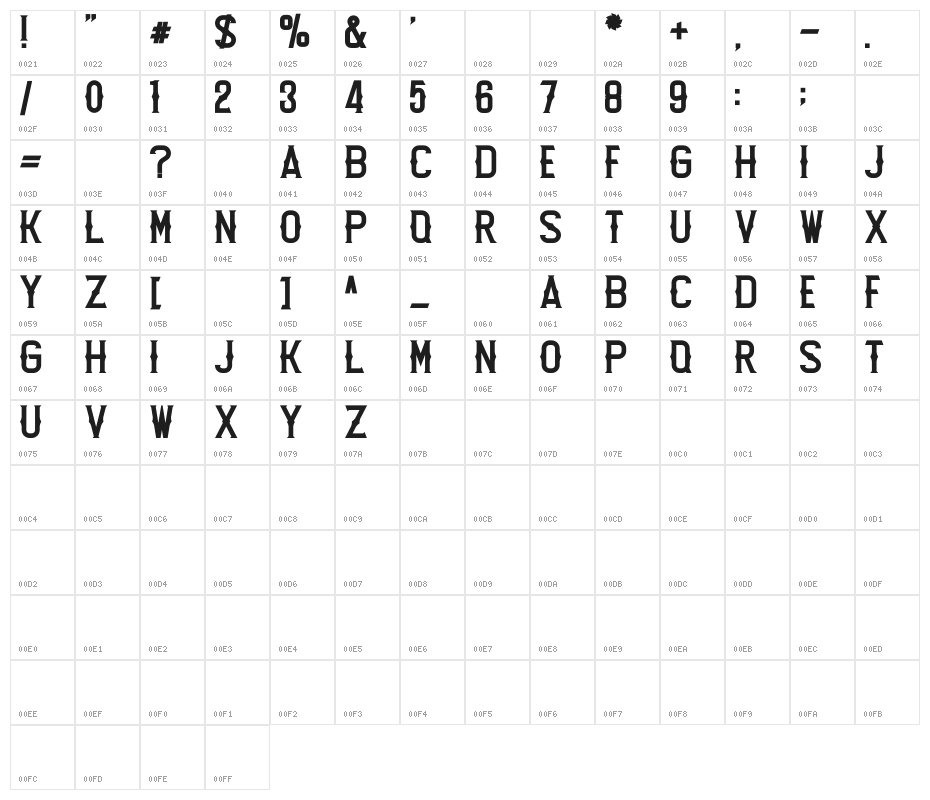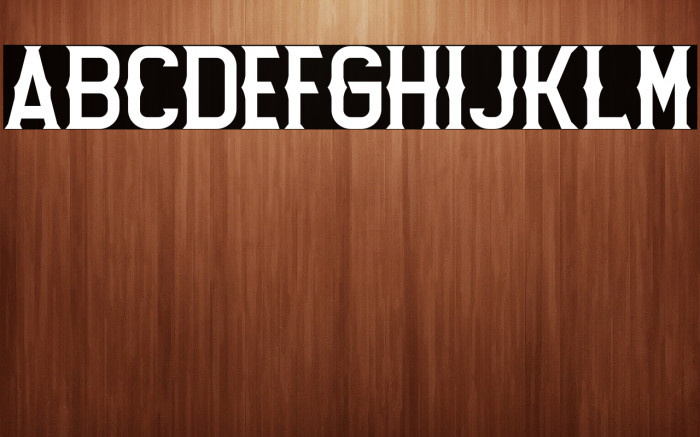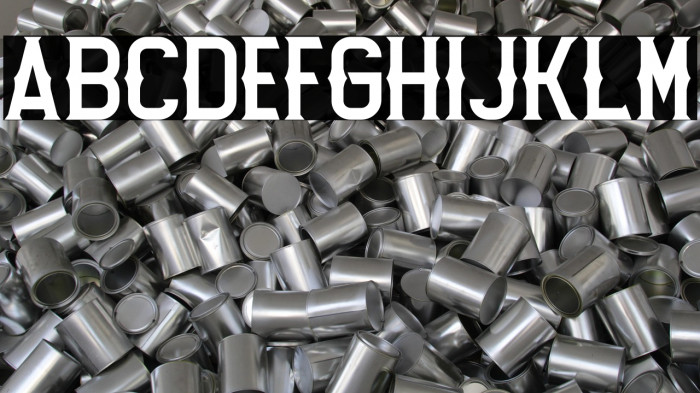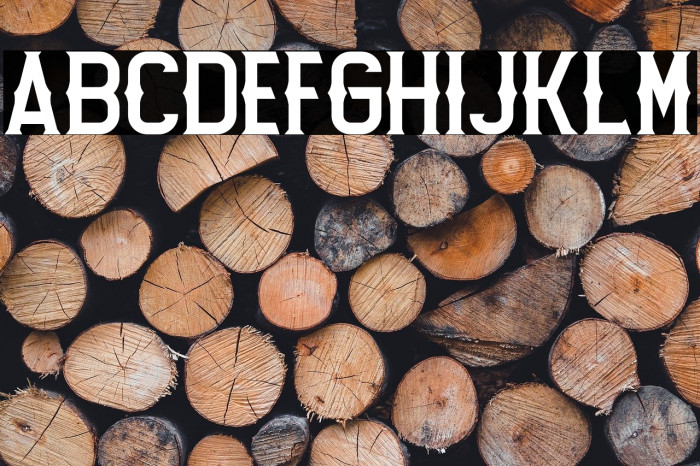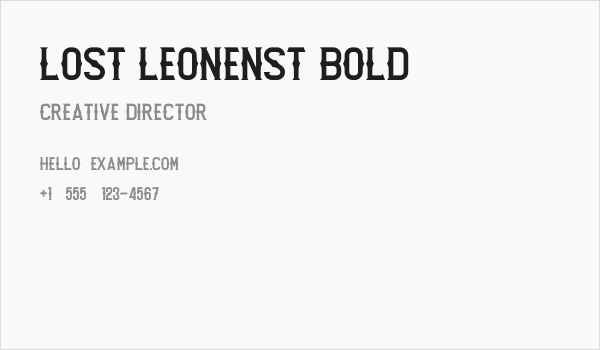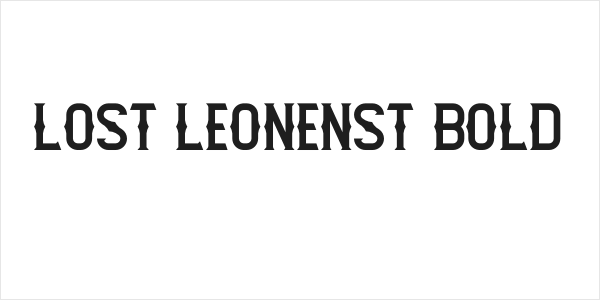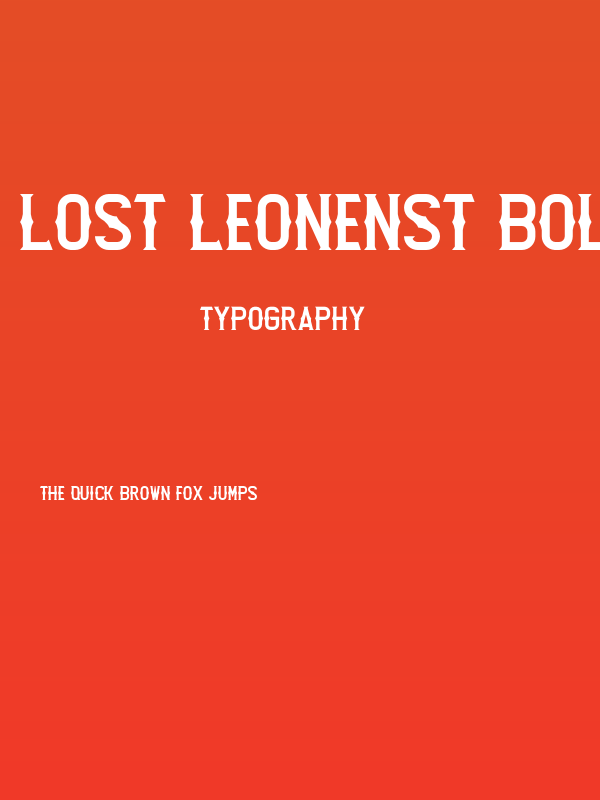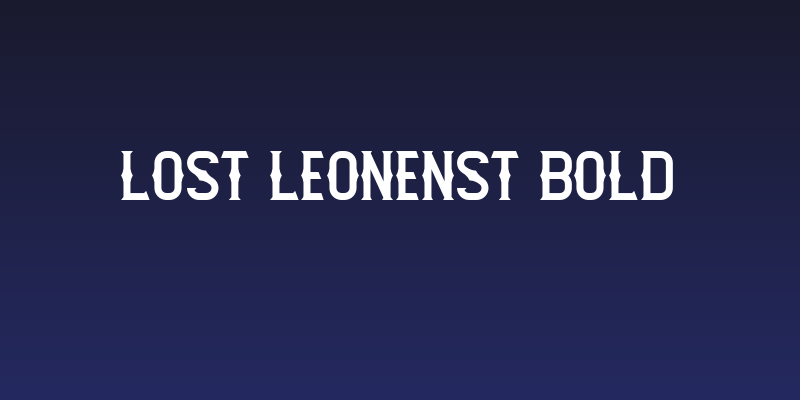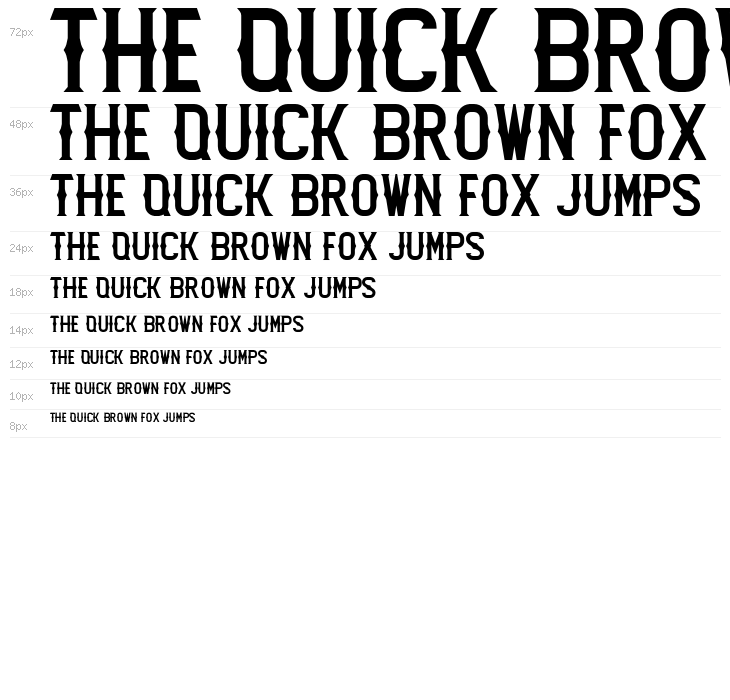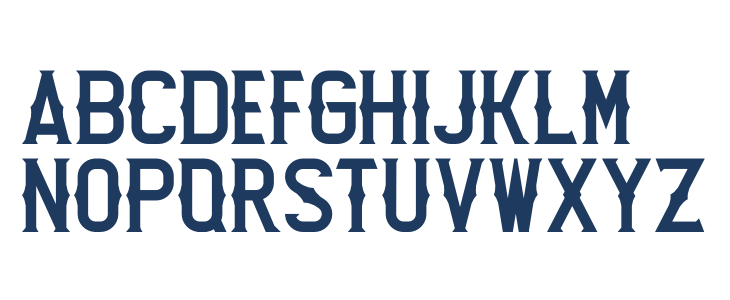
Lost Leonenst Bold Font
Lost Leonenst Bold Description
This font features a bold and striking design with a strong presence. The characters are crafted with a unique blend of sharp angles and smooth curves, giving it a distinctive and memorable appearance. The uppercase letters are particularly prominent, with a slightly condensed form that enhances their impact. The numerals and special characters maintain the same boldness, ensuring consistency throughout. This font's style is reminiscent of vintage signage, making it ideal for projects that require a touch of nostalgia and boldness.
| Proposed Projects | Ideal for vintage posters, branding, logos, and headlines that require a strong visual impact. |